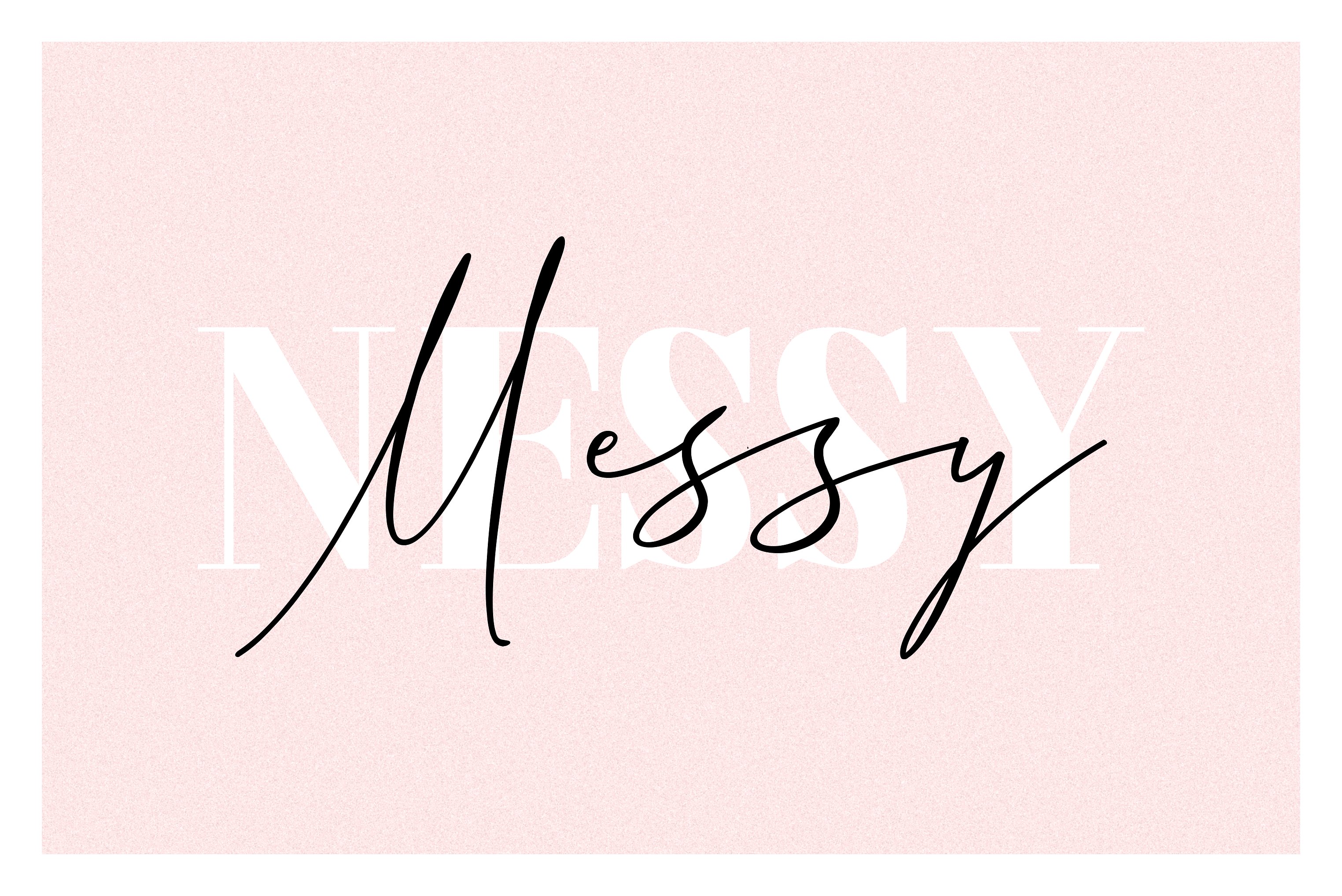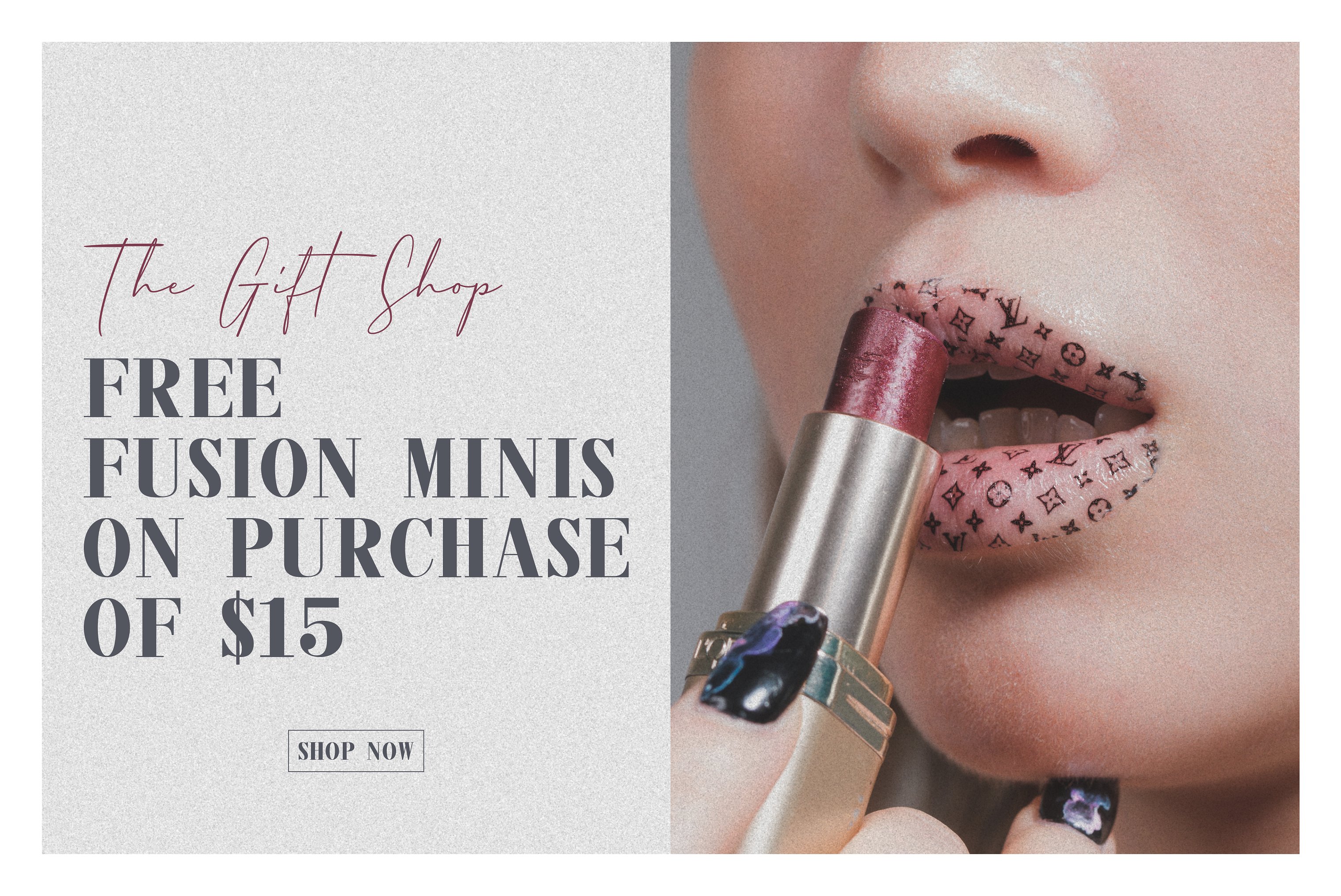
Messy Nessy Script Font
Introducing Messy Nessy, two signature script and one serif font it was created to help you designing makes gorgeous logos, badge, sign, packaging, headline, social media, etc. It is so beautiful and classy.